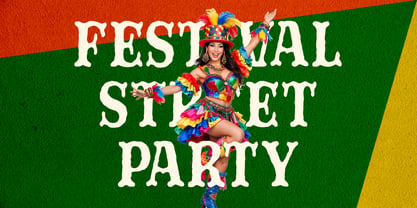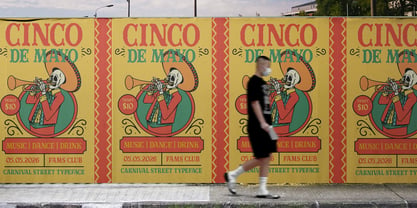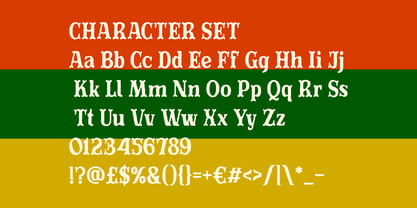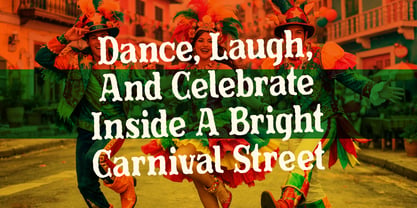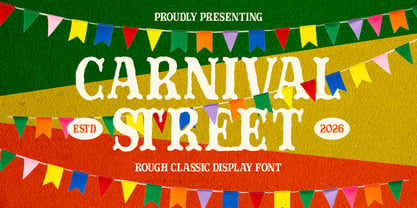
Carnival Street
by Shanaf
The Carnival Street Font Family was designed by Yesie Erma Yunita and published by Shanaf. Carnival Street contains 1 styles. More about this family
Carnival Street Rough Classic Display Font is a bold serif display typeface inspired by festive street culture. The letterforms feature thick strokes with slightly irregular edges and textured contours. Each character carries a rough carved appearance that adds personality and handcrafted charm. The proportions are moderately wide with strong vertical presence and balanced spacing. Serif terminals appear rounded and slightly softened, giving the typeface a playful classic tone. The structure blends vintage circus typography with traditional display serif shapes. Carnival Street Rough Classic Display Font communicates celebration, excitement, and lively atmosphere. It works perfectly for event branding, entertainment promotions, and festive marketing designs. The visual rhythm feels energetic and expressive, making headlines instantly noticeable. The heavy strokes maintain readability while keeping a decorative carnival character. Designers can use this font for logo systems, poster titles, and festival announcements. It fits perfectly for carnival events, street markets, music festivals, and cultural celebrations. The playful serif details help create nostalgic yet vibrant branding identities. This typeface also performs well for magazine covers, packaging titles, invitation cards, stickers, and promotional advertising. Carnival Street Rough Classic Display Font adds strong personality to creative projects. The character set includes uppercase, lowercase, numbers, and punctuation for flexible design applications.
Designers: Yesie Erma Yunita
Foundry: Shanaf